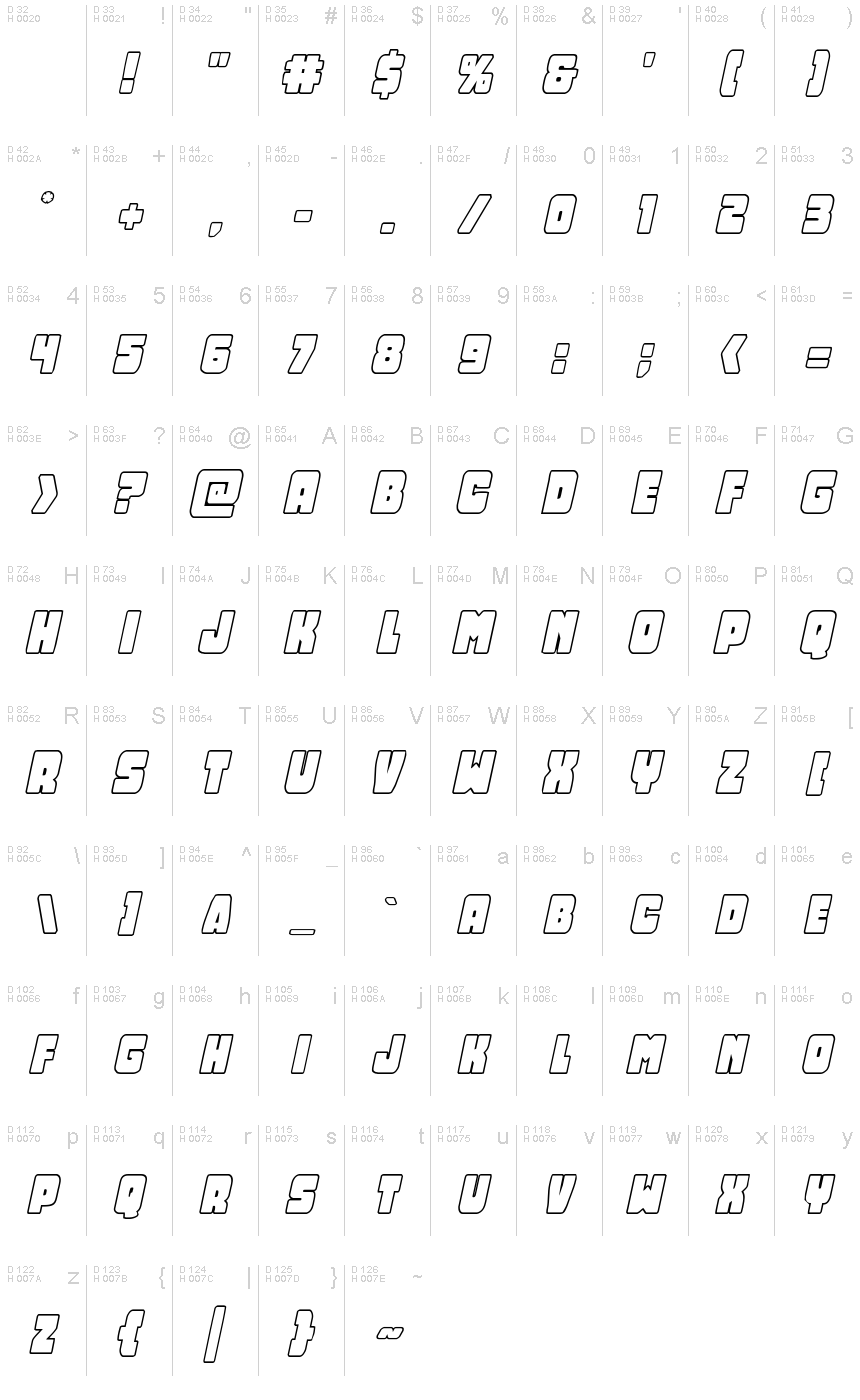
Opus Mundi Outline Italic
Opus Mundi is a visually striking font that commands attention. Its bold, condensed outline style lends it an air of grandeur and authority, making it well-suited for bold headings, impactful logos, and eye-catching display text. The italic slant adds a sense of movement and dynamism, while the subtle curves and clean lines give it a timeless, elegant quality.
Opus Mundi's versatility shines through, making it a compelling choice for a wide range of design projects, from editorial layouts to packaging design and beyond. Its unique aesthetic sets it apart, making it a font that truly stands out.